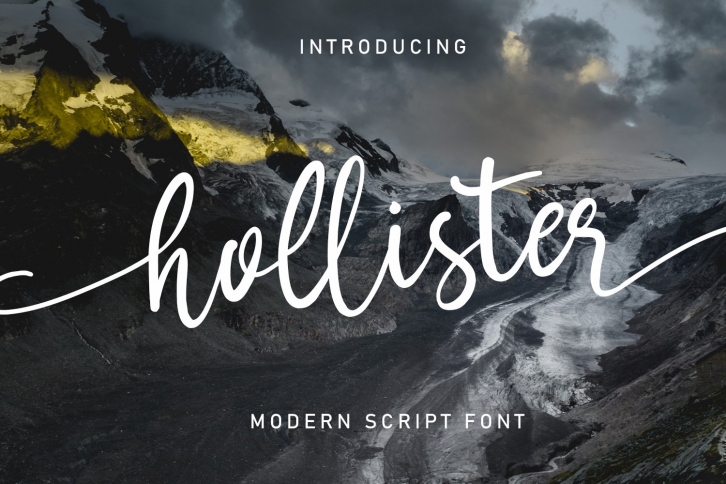
Hollister Font Download
Hollister is a great font that was designed by Arendxstudio. Imagine the amount of combinations you can create using this font! The archive is 4.65 MB and it was released on March 30, 2020. Hollister looks beautiful on wedding invitations, greeting cards, logos, posters, labels, t-shirt designs, logos, business cards and is perfect for use in ink or watercolor works, fashion, magazines, packaging and food menus, children's books and more!